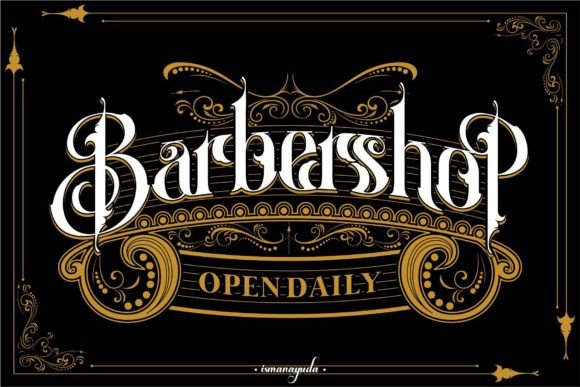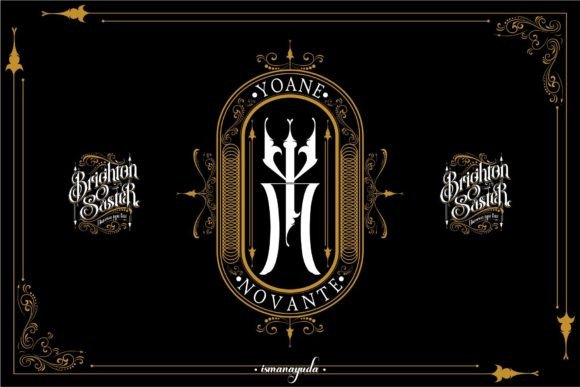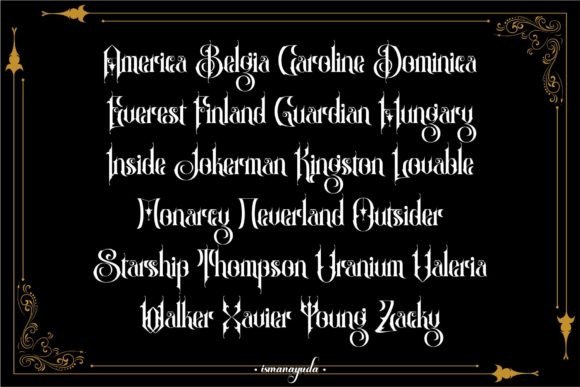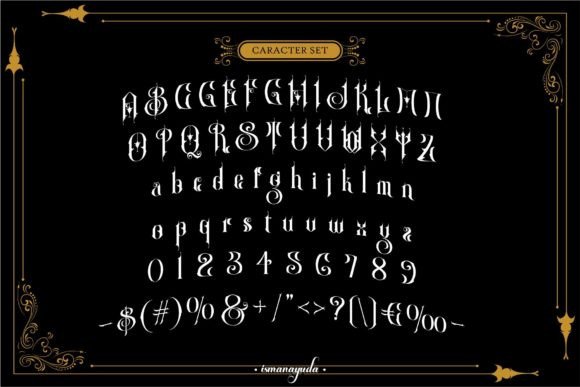
Unlocking the Artistry of Brighton Saster Font
Have you ever found yourself lost in the creative process, staring at a blank page, and wondering where the magic will strike next? For designers, this moment is a familiar friend, and the spark that sets the imagination ablaze. It’s the thrill of bringing an idea to life, of crafting something that will capture the hearts and minds of others.
Enter the Brighton Saster Font, a masterpiece of Old Victorian style that’s not just a font, but a work of art in its own right. With its unique character and versatility, this font can be used for everything from t-shirt mock-ups to cafe front displays, and even tattoo designs. But what makes it truly valuable to designers is the wealth of bonuses that come with it, including vector ornaments and frames that can elevate any project to new heights.
Brighton Saster Font Key Features
- Font Family: Brighton Saster Font is a unique, hand-drawn font designed for creative and artistic purposes.
- Unique Characteristics: Features a mix of hand-drawn and digital elements, resulting in a distinctive, artistic look that sets it apart from other fonts.
- Font Weight: Available in Regular and Bold weights, allowing for a range of design options and emphasis.
Brighton Saster Font Review
Overall, Brighton Saster Font has a lot to offer, especially when it comes to creativity and uniqueness. ✨ The font’s intricate design elements and bold lines make it perfect for adding a touch of sophistication to any project.
The font’s versatility is another plus, as it can be used in various contexts, from advertising and marketing materials to editorial and design projects. ✨ Its ability to convey a sense of elegance and refinement makes it an excellent choice for high-end brands and businesses.
- ⚠️ The font may be difficult to read in smaller sizes or when used in plain text.
- ⚠️ The bold lines and intricate design elements can sometimes make the font look cluttered or overwhelming.
- ⚠️ The font’s uniqueness may not be to everyone’s taste, and some users may find it too bold or overpowering.
While Brighton Saster Font has its limitations, its unique design elements and versatility make it a great choice for designers looking to add a touch of sophistication to their projects. With careful use and consideration, this font can be a real showstopper.
Tips: Use Brighton Saster Font for headings and titles to add a touch of elegance to your designs.
Tips: Use Brighton Saster Font for logos, headings, and titles to create a unique and eye-catching design.
Tips: Use Brighton Saster Font for headings, titles, and body text to create a cohesive and professional design.
Brighton Saster Font is ideal for:
- Body text for a unique touch
- Business cards and stationery